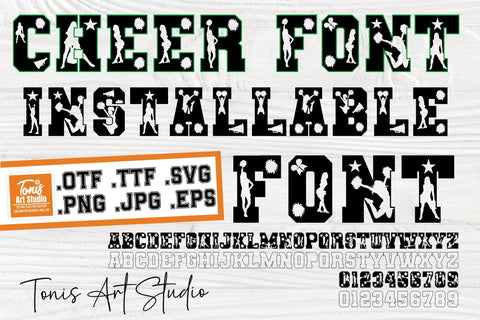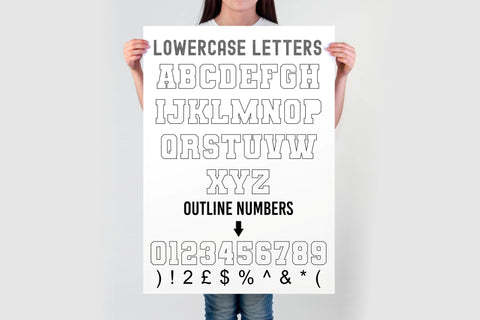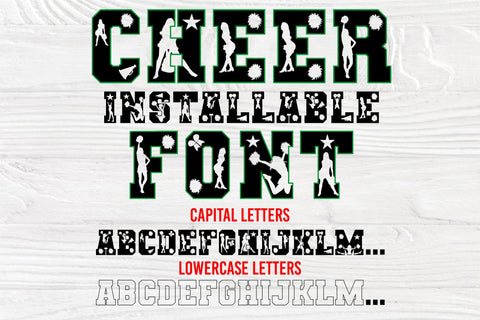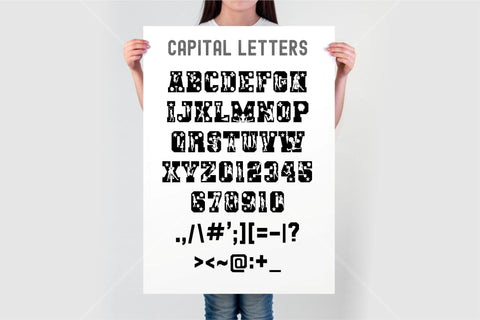
Bring a sporty and dynamic look to your designs with the Cheer Varsity Font! This unique typeface combines bold capital letters with outline lowercase letters, creating endless design possibilities. Whether you're crafting DIY cheerleading banners, team posters, or spirit wear, this versatile font is designed to stand out.
• Bold capital letters and outline lowercase letters that perfectly align with each other.
• Outline numbers (0123456789) are included and can be accessed via the symbols section )!@#$%^&*(.
Perfect For:
• DIY Cheerleading Posters
• Spirit Wear for Teams
• Custom Team Logos
• Cheerleading Event Branding
• Personalized Gifts and Merchandise